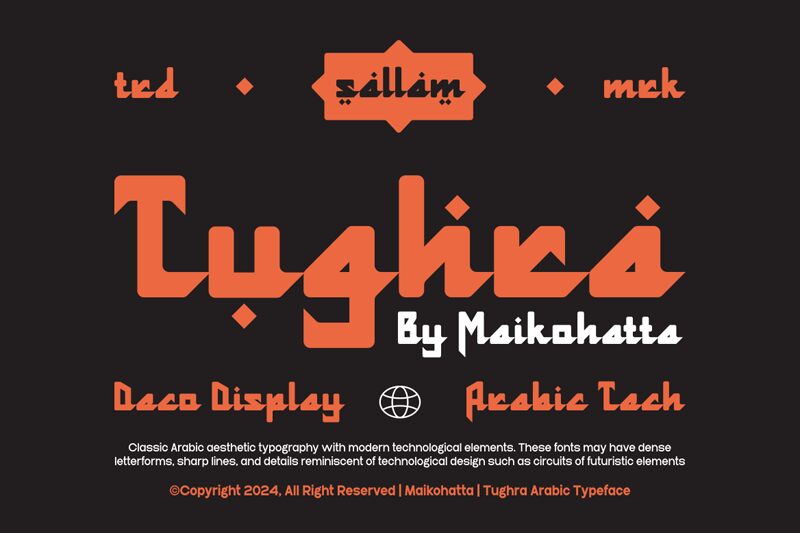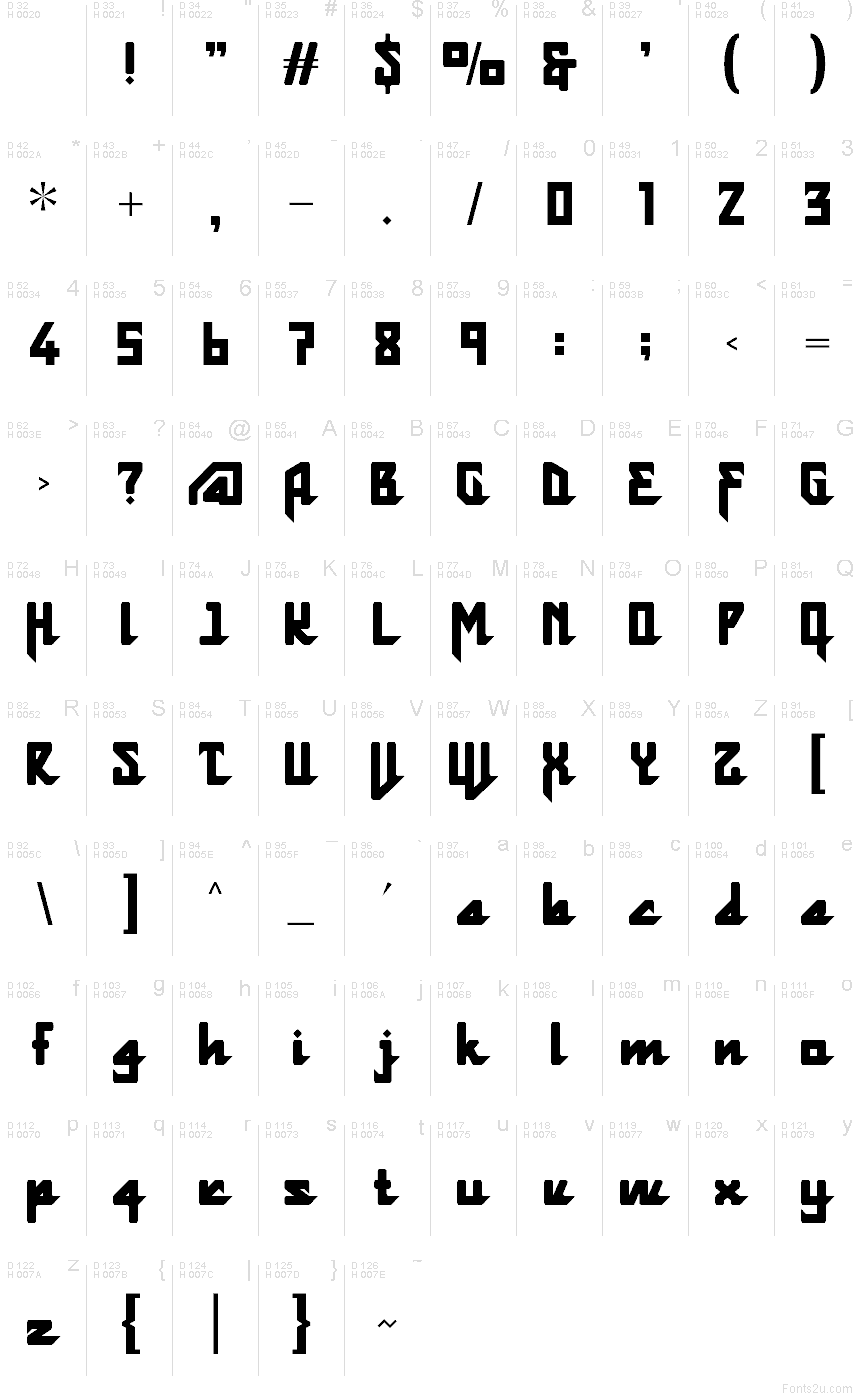
Tughra
Tughra font by Gilang Ternadho of Maikohatta is a free foreign faux-arabic typeface that turns Latin letters into bold, stylized calligraphy. Heavy, blocky strokes bend into hooked angles and sharp corners, creating a strong horizontal flow that echoes painted shop signs and stamped logos. The letters sit close together, forming chunky word-shapes that feel carved rather than written, with a sturdy, almost architectural rhythm.
Using Tughra, you can give instant Middle Eastern flair to restaurant branding, hookah bar signage, festival posters, game titles, packaging, and social media graphics. This free font works best in bigger sizes where its zigzag strokes and thick contours can really show. For legible body copy, pair Tughra with a simple sans serif and let Tughra handle headings, logos, and short, punchy phrases.